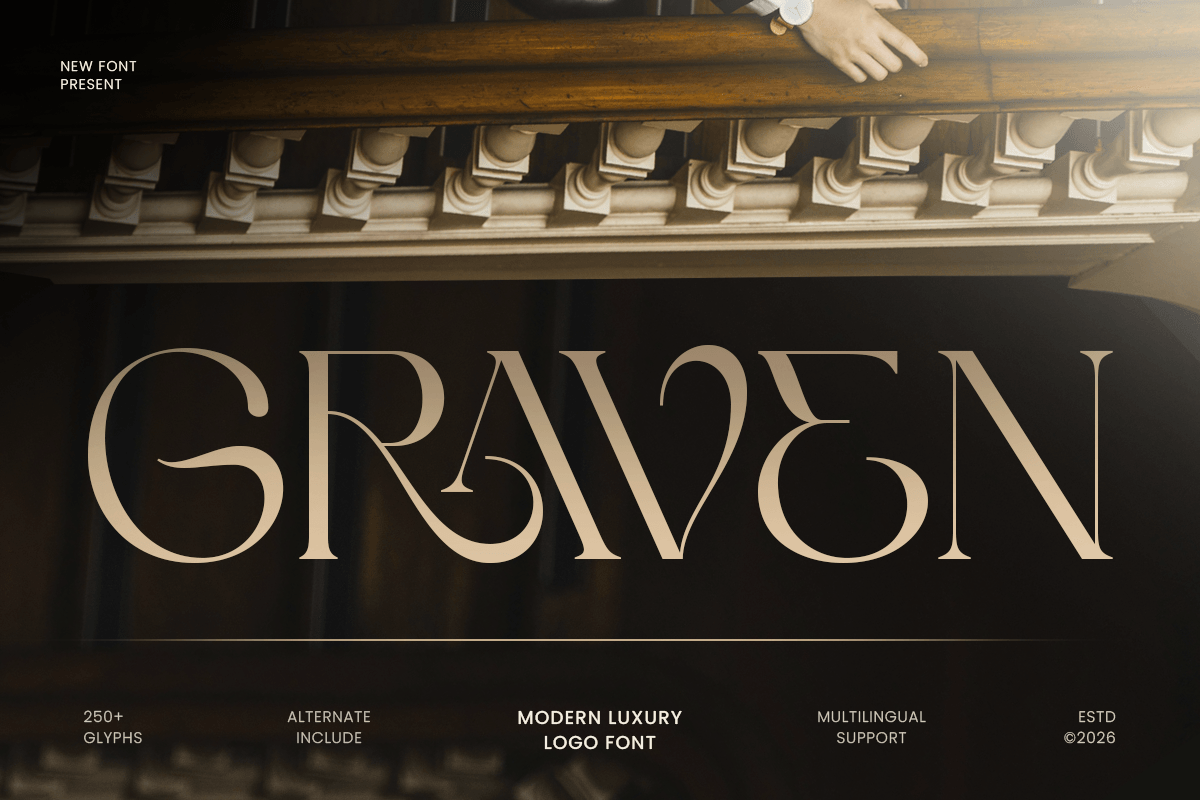
Graven
-Modern Luxury Logo FontGraven - Modern Luxury Logo Font
GRAVEN is a modern luxury logo font designed to create sophisticated and memorable brand identities. With its refined letterforms, elegant proportions, and contemporary luxury aesthetic, this typeface is perfect for premium logos, fashion branding, editorial layouts, packaging, and high-end visual projects.
Crafted for designers who seek a balance between modern simplicity and exclusive character, GRAVEN delivers a polished and timeless appearance. Its stylish details and balanced structure make every wordmark feel confident, premium, and visually distinctive.
Whether used for luxury brands, beauty products, boutique identities, wedding stationery, or creative campaigns, GRAVEN enhances your designs with elegance and a strong professional presence across both print and digital media.
GRAVEN – Modern Luxury Logo Font Features
Modern luxury display style with elegant branding appeal
Perfect for logos, packaging, editorials, and premium identities
Refined letterforms with sophisticated visual balance
Ideal for fashion, beauty, lifestyle, wedding, and boutique brands
OpenType features for enhanced typographic styling
Create a premium visual identity with GRAVEN – the perfect modern luxury logo font for elegant branding, sophisticated packaging, and timeless design. ✨